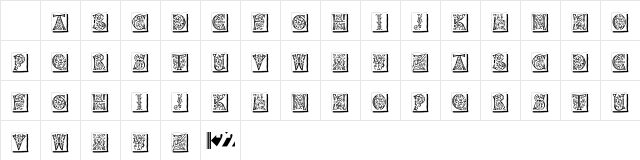
Complete Napoli Initials Alt Regular glyph index. Displaying only characters natively supported by Napoli Initials Alt Regular font.
Napoli Initials Alt is a composed and adaptable typeface that performs quietly and consistently across a wide range of design contexts.